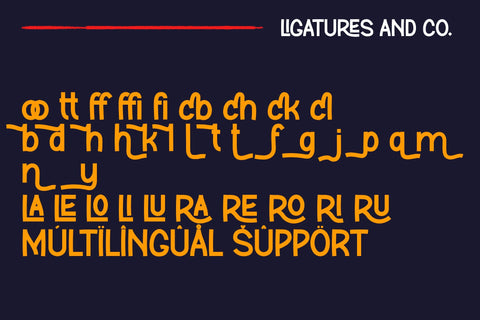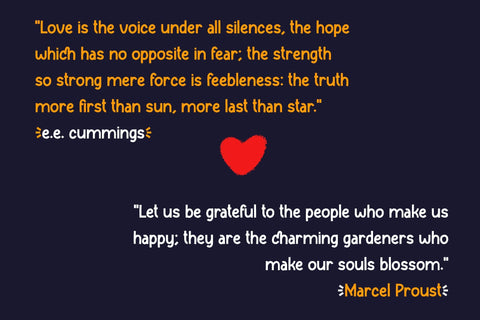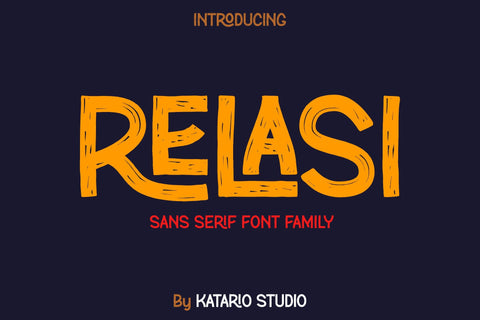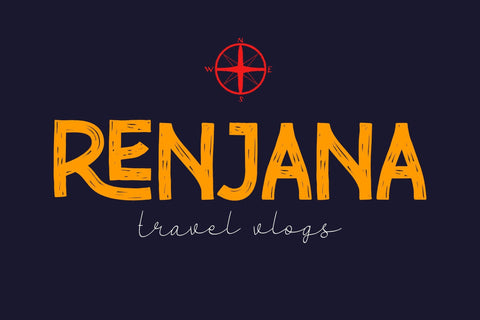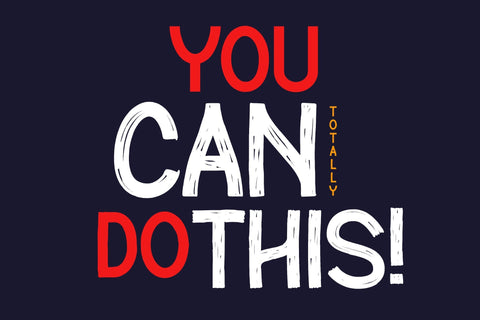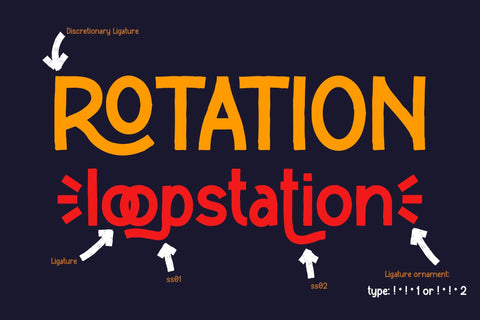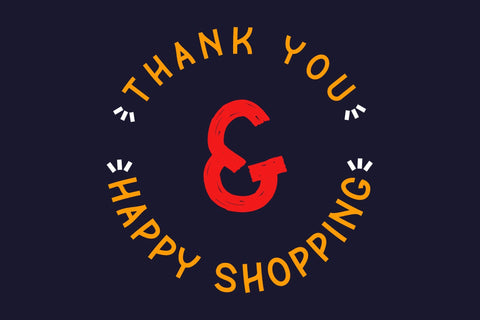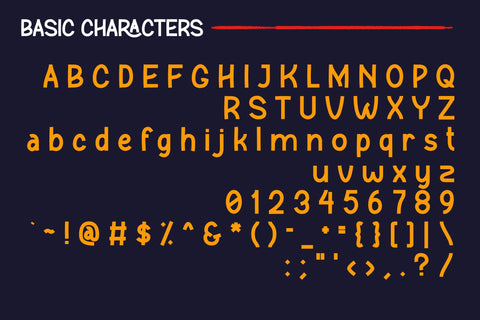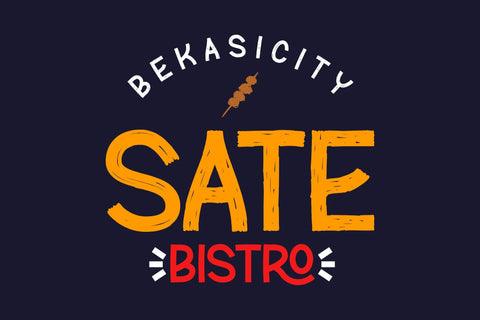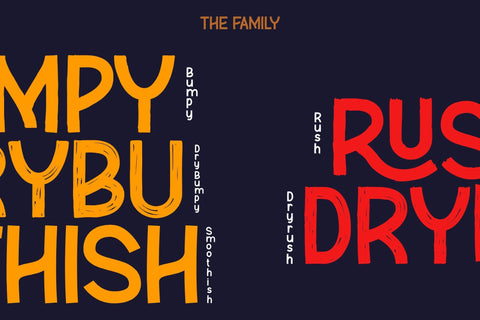
Relasi | Brush San Serif Font Family
Introducing, Relasi - a Brush San Serif Font Family. Relasi is a bold, vintage, gorgeous and versatile typeface that gives your projects more actractive. Relasi typeface have a lot of ligatures, stylistic style, and simple ornament that you can access it by typing: !!1 or !!2. This Typeface have 5 style you can choose or combine for your projects. If you need typeface for logotype, brand name, labels, social media, magazine, books, poster, invitation, packaging, youtube video/thumbnail or any advertising purpose; Relasi font is your answer.
- Discreationary Ligatures
- Stylistic Style Characters
- Simple Ligatures Ornament